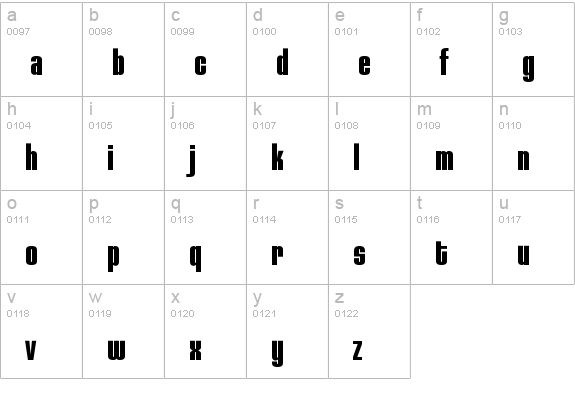
HouseGothicHG23Cond BOLD1 is a strong, high-contrast variant in the HouseGothicHG23Cond typeface family \xE2\x80\x94 well suited to headlines, attention-grabbing titles, and strong calls-to-action.
HouseGothicHG23Cond BOLD1 is a striking and bold display font that commands attention with its strong and angular letterforms. This font exudes a sense of power and modernity, making it perfect for headlines, posters, and other design projects that require a bold statement. Its condensed form allows for efficient use of space while maintaining legibility. What sets HouseGothicHG23Cond BOLD1 apart is not only its bold design, but also its versatility. Whether you are creating a sleek and professional design or a more edgy and avant-garde look, this font can adapt to a variety of styles and themes. The best part is that HouseGothicHG23Cond BOLD1 is completely free to download at FontsMarket.com. This means you can easily add this powerful font to your collection without any cost. Don't miss out on this opportunity to enhance your designs with HouseGothicHG23Cond BOLD1's bold and modern aesthetic.